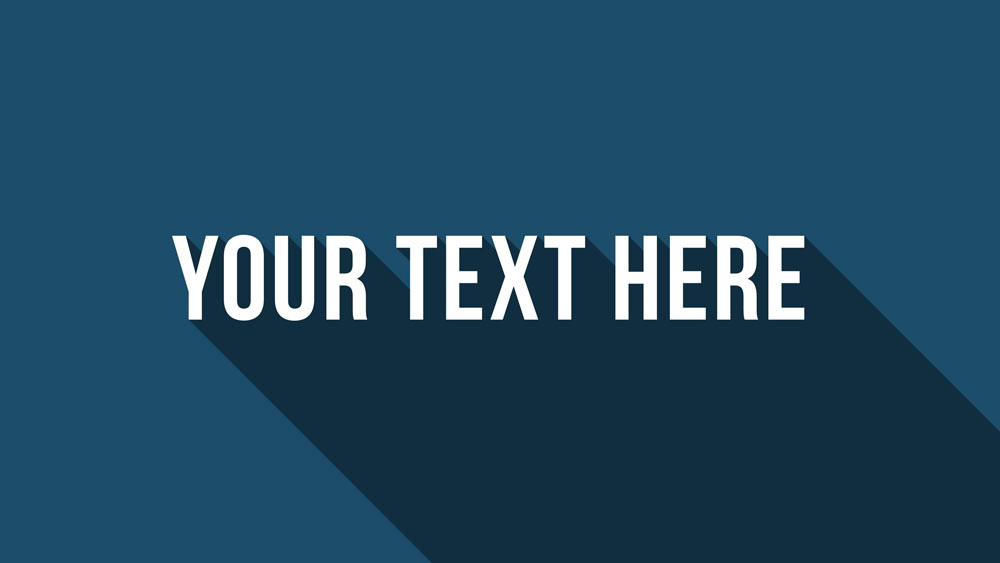
This font family will come in handy when designing many different types of slideshow presentations. Once you have made your selections, name your new theme font so you can easily find it again and hit save.
List Of What Is Font Style In Powerpoint With New Ideas, Select all of your levels of text, from the home tab, remove the bullet point formatting, and move the text indent markers all the way to the left which should give you something like this: To edit the fonts used by your template, select the “fonts” button, listed under the “slide master” tab on the ribbon bar.
These fonts should be used sparingly in pp designs. Move the cursor over the list and select the desired font style. The default font for shapes is called calibri, with a font size of 18 points. Choose the new font you wish to use from the.
If bodoni fonts are just that bit too extreme, try bell mt instead. Common decorative fonts include blackletter and broadway. Create a new presentation and type some text in the placeholder, as shown in figure 1. Brush script is one example of this type of font.
These fonts should be used sparingly in pp designs. Place a check next to embed fonts in file and make one of the following choices: The main body paragraphs are easy to read with this font in professional nuance and well designed. To change the default style or font for shapes, follow the next steps: Horizontal Text Boxes for PowerPoint PresentationGO Powerpoint.
A list of font styles appears. Select the text which you want to format (refer to figure 1, above). Serif fonts like adallyn might be the most professional font for powerpoint presentations in traditional fields. Create a new presentation and type some text in the placeholder, as shown in figure 1. How to Add Text to PowerPoint & Make Amazing Text Effects.
To change the default style or font for shapes, follow the next steps: The font should therefore be sans serif and easy to read. Use the same font for the heading, just make it larger and/or darker (larger and darker fonts grab focus). Changing font style and size in powerpoint. Format Font Styles in PowerPoint 2013.
Now, navigate to the home tab of the ribbon and locate the font group, as highlighted in red within figure 2. This font is yet another basic sans serif font that works beyond many industries and types of presentations. Once you have made your selections, name your new theme font so you can easily find it again and hit save. Body text provides all the important info. The 10 Best PowerPoint Fonts for Your Presentation Design Superside Blog.
Use the same font for the heading, just make it larger and/or darker (larger and darker fonts grab focus). This font family will come in handy when designing many different types of slideshow presentations. To return to editing your slides, on the slide master tab, in the close group, click close master view. This list will help you find the best font for your next presentation, regardless if you’re using powerpoint, google slides, keynote or any other tool to create it. Textbox Layouts for PowerPoint SlideModel.
Select the text you want to modify. Select the font you want to use for all the slides in the presentation. On the insert tab, in the illustrations group, click on the shapes dropdown list. Then, restart the powerpoint application. Change Font Colors and Styles on PowerPoint Slides.
For the line spacing (zab) you should set approx. The first one is easy: Select all of your levels of text, from the home tab, remove the bullet point formatting, and move the text indent markers all the way to the left which should give you something like this: Select home tab and locate the font group. Create Custom Theme Fonts in PowerPoint 2007 and 2010.
Any changes you make in slide master. To change the font style of a selected piece of text, simply click on the dropdown in the home tab. Changing font style and size in powerpoint. Place a check next to embed fonts in file and make one of the following choices: How to Find the Best Font for PowerPoint Presentations? Powerpoint.
Changing font style and size in powerpoint. For the line spacing (zab) you should set approx. To start, open your microsoft powerpoint presentation and select view > slide master. The default font for shapes is called calibri, with a font size of 18 points.